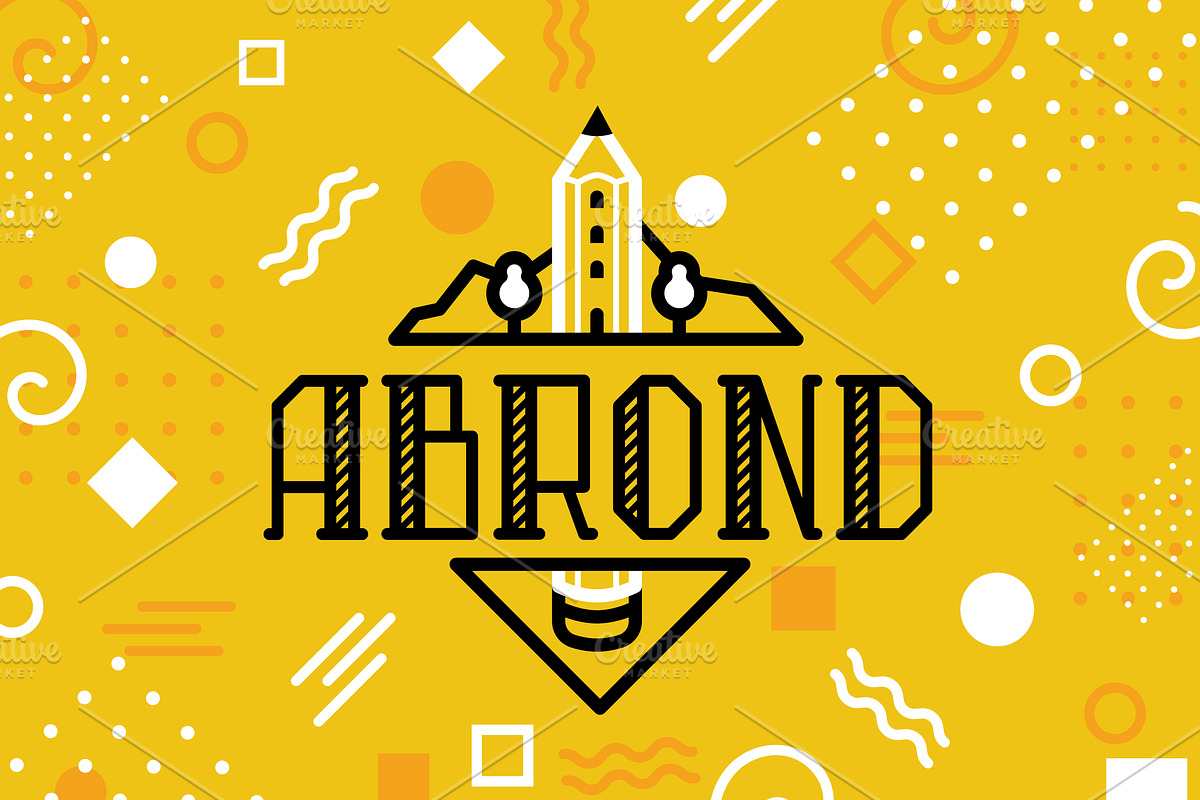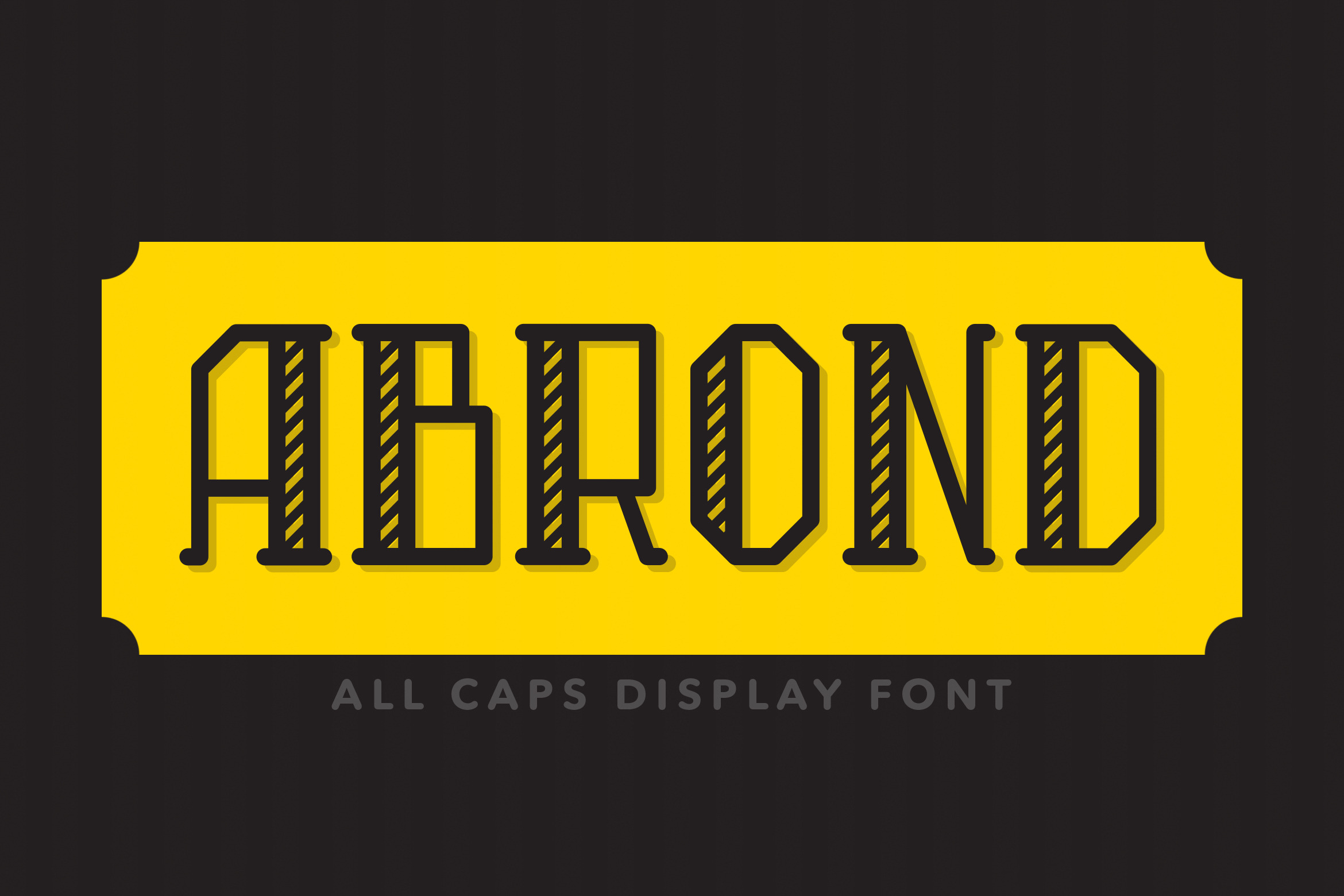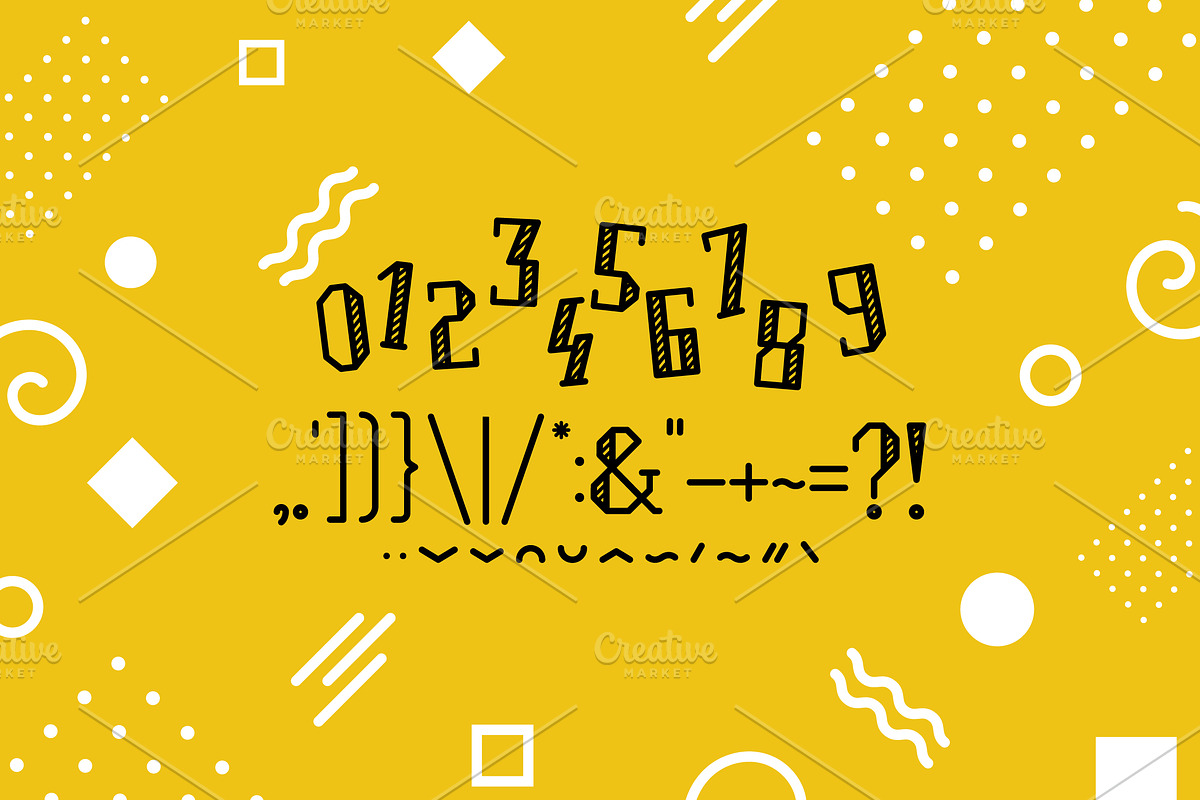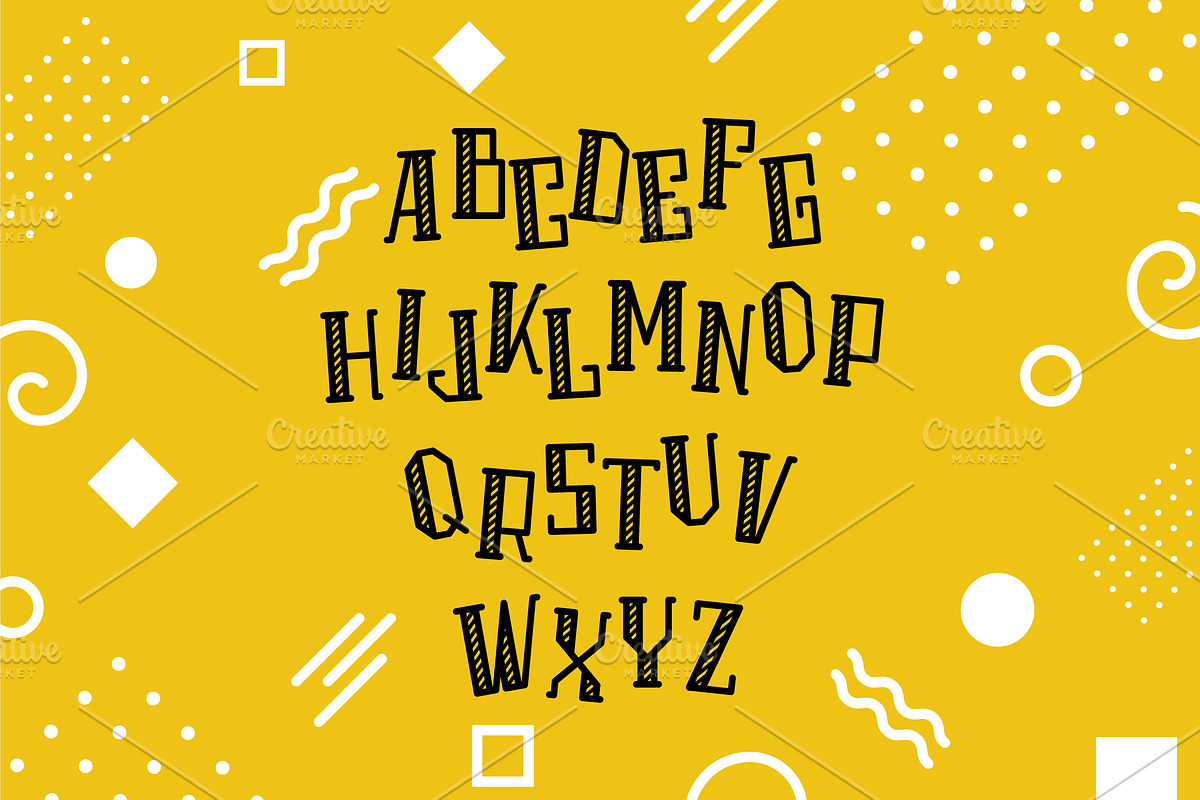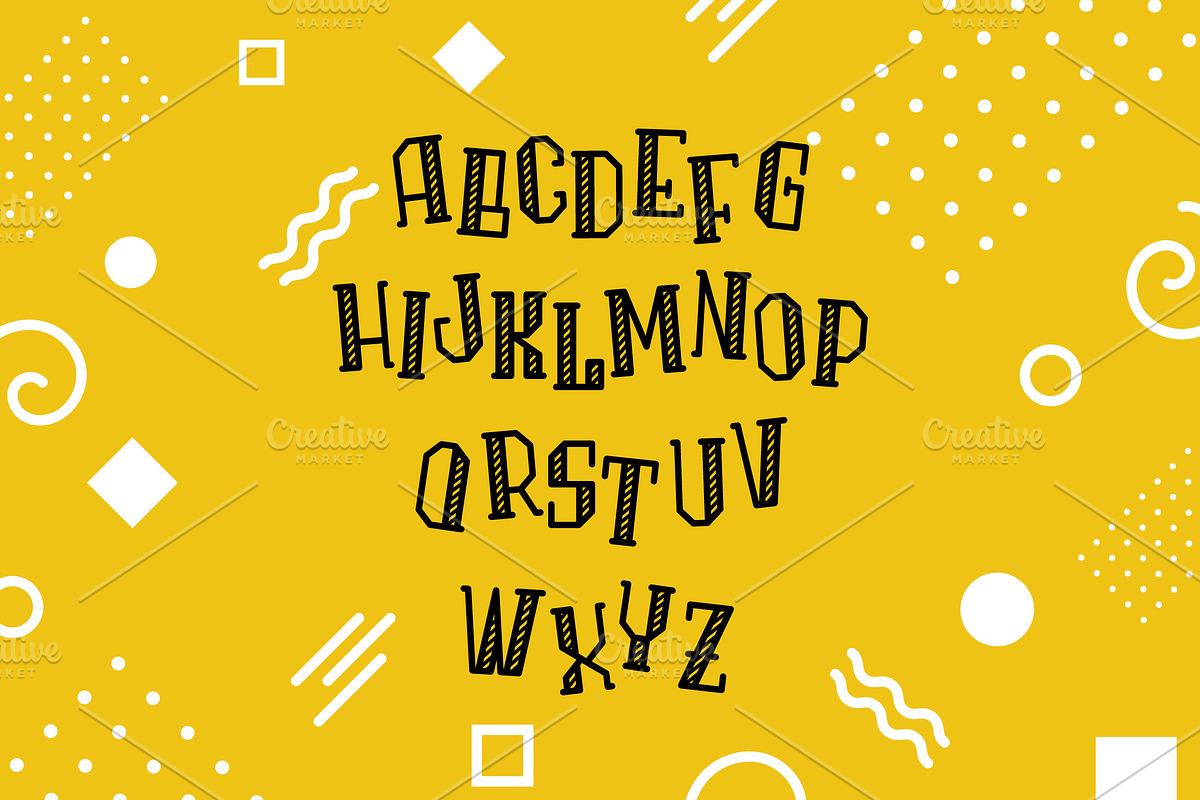
Abrond Typeface
Abrond typeface is a fun mix of hip and seriousness. It has a unique yet simple appearance. The overall looking of this typeface is suitable for anyone who wants to achieve something effective and appealing.
- 26+26 all capitals with different appearance
- 0-9 Numbers
- accent glyphs to create alternate characters for different languages
- Over 20 Glypshs